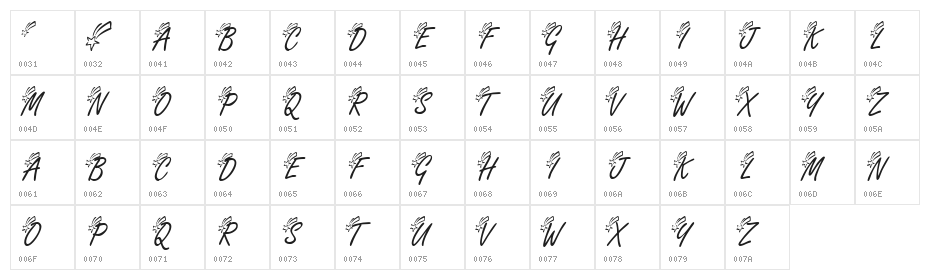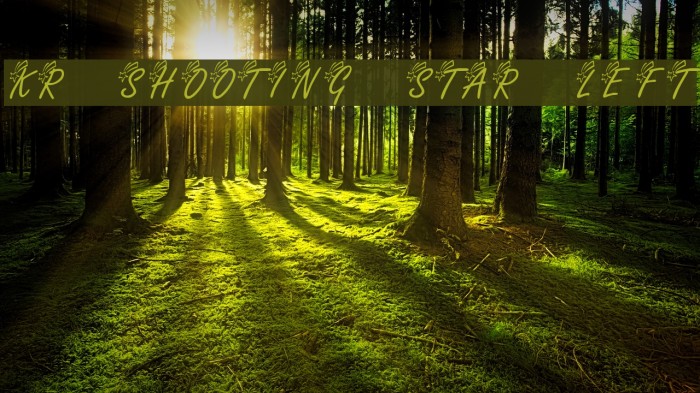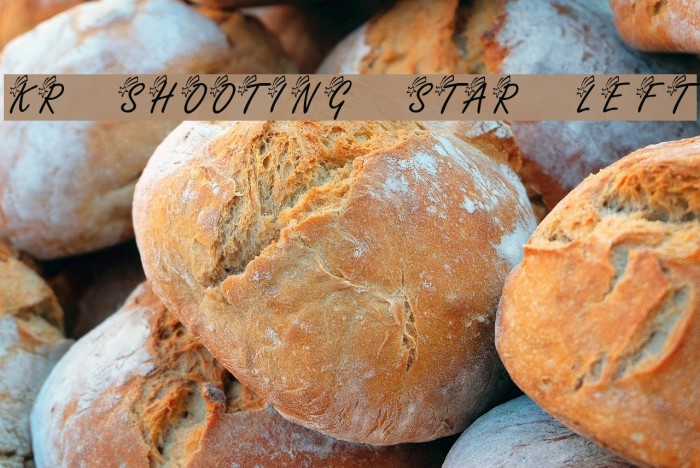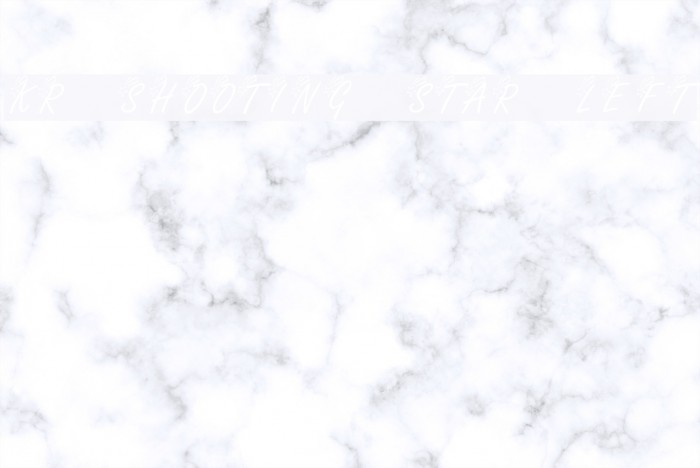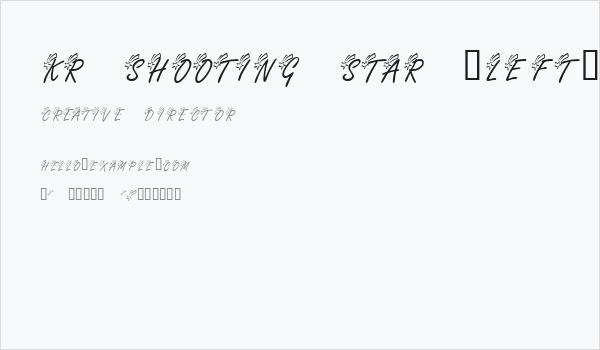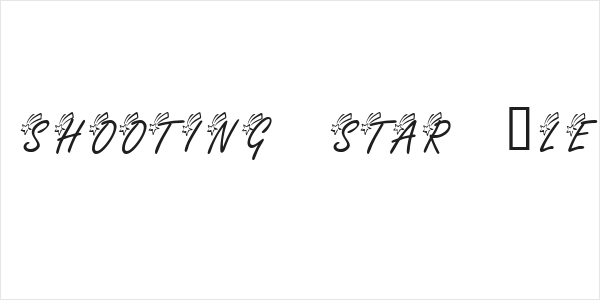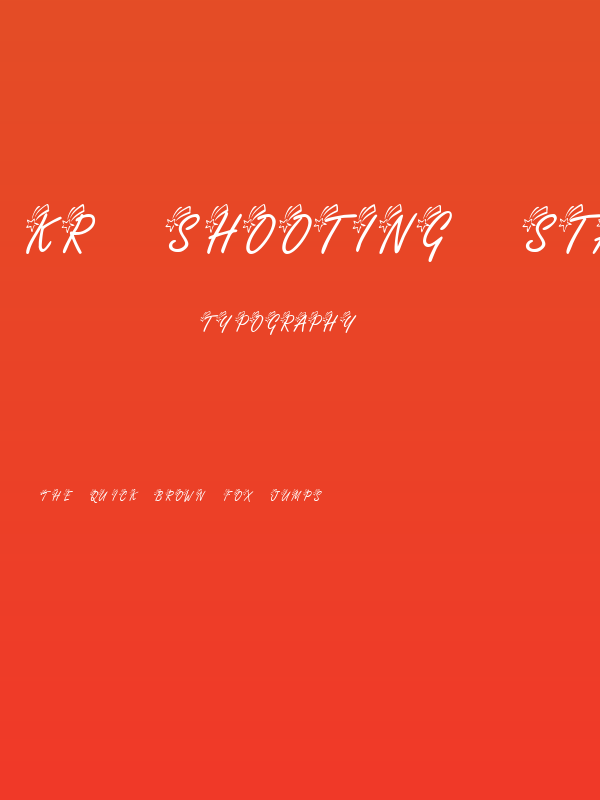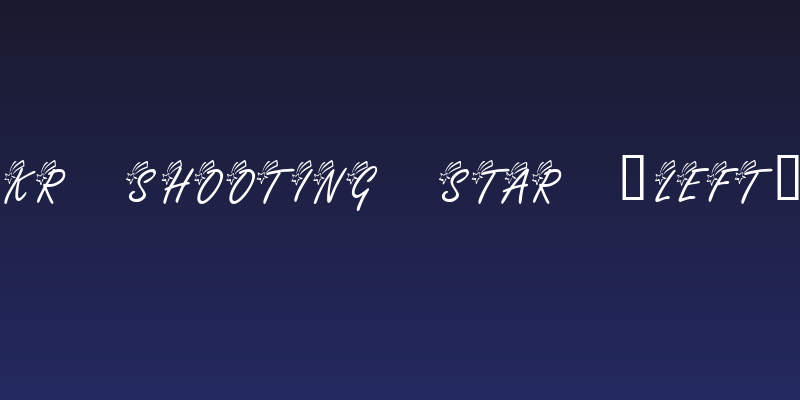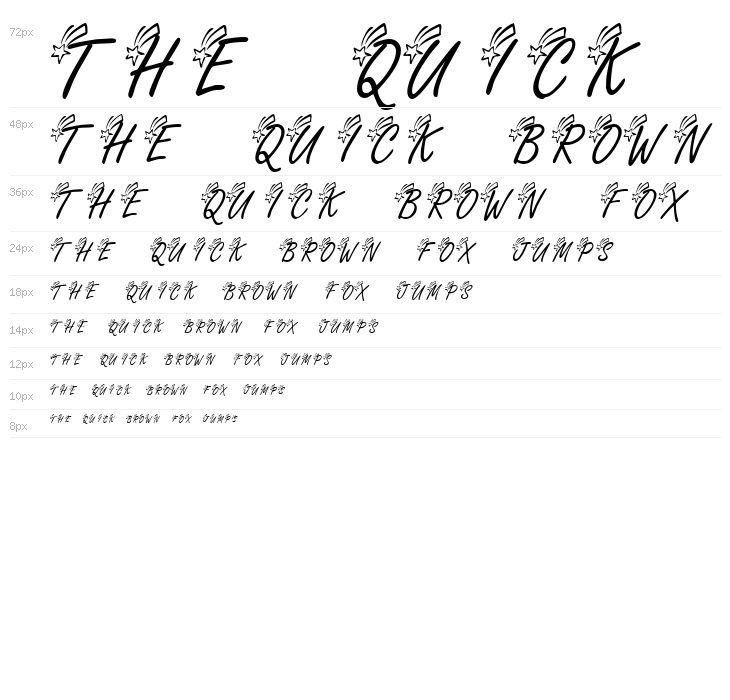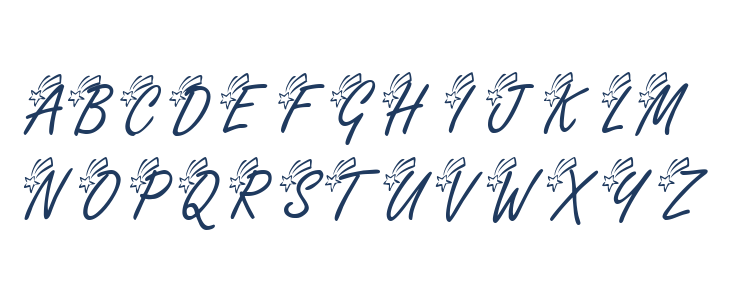
KR Shooting Star [Left] Font
KR Shooting Star [Left] Description
This decorative font features a whimsical and playful design, incorporating shooting star motifs alongside each letter. The characters are styled in a script-like manner, with elegant curves and a sense of motion, reminiscent of handwriting. The stars add a unique touch, making it ideal for creative and imaginative projects. The uppercase and lowercase letters maintain a consistent style, with smooth transitions and a cohesive look. The numbers and special characters are also designed to match the overall theme, ensuring a harmonious appearance across all text elements.
| Proposed Projects | Perfect for children's book covers, whimsical invitations, greeting cards, and playful branding. |